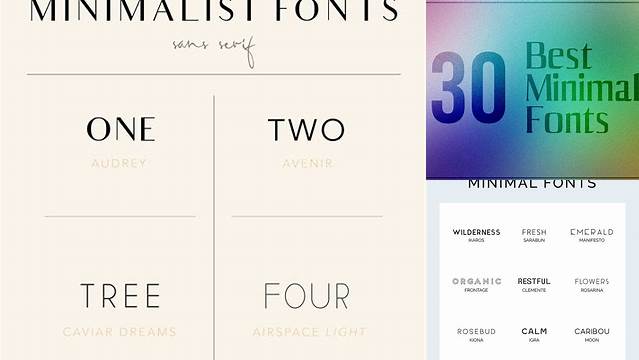
Minimalist Fonts: Free Downloads & Design Guide
Minimalist Font Style: Free Downloads & Design Inspiration
Hey design enthusiasts! Are you looking to give your projects a clean, modern, and timeless feel? Then you've landed in the right spot! Today, we're diving headfirst into the world of minimalist font styles, where less definitely equals more. We'll explore some fantastic free download options and sprinkle in some design inspiration to get your creative juices flowing. Buckle up, because we're about to embark on a typographic adventure! When it comes to design, simplicity reigns supreme, and the right font can make all the difference. Minimalist fonts are the unsung heroes of the design world, effortlessly communicating your message while adding a touch of elegance and sophistication. They're perfect for everything from website design and branding to print materials and social media graphics. So, whether you're a seasoned designer or just starting out, understanding the power of minimalist fonts is a must. Let's get started with our comprehensive guide to minimalist font styles. You will discover how to find the perfect typeface for your project. We'll discuss the key characteristics of minimalist fonts, where to find free downloads, and how to use them effectively in your designs. This comprehensive guide will empower you to create stunning visuals that captivate your audience and leave a lasting impression.
What Makes a Font Minimalist?
So, what exactly is a minimalist font? Essentially, it's a typeface that embraces simplicity. It's all about clean lines, uncluttered forms, and a focus on functionality. Think of it as the design equivalent of a perfectly tailored suit – elegant, understated, and always in style. These fonts typically feature a few key characteristics: a lack of unnecessary embellishments, such as serifs (those little strokes at the end of letterforms), or decorative flourishes. Instead, they often sport a geometric structure with a focus on balance and harmony. Many minimalist fonts are sans-serif, meaning they lack those serifs, which contributes to their modern, clean aesthetic. This makes them incredibly versatile and easy to read, even at smaller sizes. Think about the iconic Helvetica or Futura. Both of these are great examples of minimalist sans-serif fonts. This makes them great for logos, body text, and headlines. The emphasis is on clarity and readability, ensuring that your message is communicated clearly and effectively. The goal is to create a visual experience that is both aesthetically pleasing and easy to understand. Minimalist fonts aren’t just about what’s there; they’re also about what’s not there. The careful use of negative space around and within the letters is a crucial element of their design. The spacing allows the letters to breathe and prevents the design from looking cluttered. This is especially important when designing for digital platforms, where clarity and legibility are paramount. A well-designed minimalist font will elevate your design, making it feel sophisticated and professional. By focusing on simplicity, these fonts avoid distracting your audience from your message. They allow your content to take center stage. This design philosophy can significantly enhance your brand identity. It provides a timeless appeal that remains relevant across different trends and contexts. The ability to maintain a consistent and recognizable style across various media is a key advantage of minimalist fonts. When choosing a minimalist font, consider the overall tone and message you want to convey. A simple sans-serif might be perfect for a tech company, while a slightly more structured typeface could work well for a design studio. This allows you to match the font with your brand's personality and values.
Free Download Sources for Minimalist Fonts
How to Use Minimalist Fonts Effectively in Your Designs
So, you've got your fonts downloaded. Awesome! Now, let's talk about how to use them effectively. Here are some tips and tricks to help you create stunning designs with minimalist fonts:
- Choose the Right Font: This might seem obvious, but it's crucial! Consider the overall feel of your design and the message you want to convey. A clean, geometric sans-serif might be perfect for a modern tech company. A slightly softer, more rounded font could be a great choice for a lifestyle brand. Experiment with different fonts to see which one best fits your needs.
- Keep it Simple: The whole point of minimalist fonts is simplicity. Avoid overcrowding your design with too much text or unnecessary elements. Use negative space wisely to let your font breathe and make it easier to read. This helps you maintain focus on the text. Ensure your design's readability. Strive for a balance between text and visual elements. This will keep your design both informative and visually appealing.
- Pay Attention to Hierarchy: Use different font weights and sizes to create visual hierarchy. This helps guide the reader's eye and makes your content easier to scan. You can use bold for headings, regular for body text, and a lighter weight for subheadings. A well-structured hierarchy guides your audience. Ensure your main points grab their attention. This enhances the overall clarity of your design. Careful arrangement of font sizes helps in prioritizing information. This ensures that the most important elements stand out.
- Contrast is Key: Use contrast to make your text pop. Experiment with different background colors. Text colors should be carefully selected to enhance readability. For example, a dark font on a light background or a light font on a dark background. This is key for readability. Proper contrast makes your text stand out. This will capture the reader's attention. High contrast is crucial for accessibility. People with visual impairments can read your content with ease.
- Consider Kerning and Leading: Kerning is the spacing between individual letters, while leading is the spacing between lines of text. Fine-tune these settings to optimize readability and create a visually pleasing layout. Poor kerning can make a font difficult to read. Bad leading can make text lines overlap. Adjusting these parameters will improve readability. It will also improve the overall look of your design.
- Test, Test, Test: Always test your design on different devices and platforms to ensure that it looks good everywhere. Make sure that your font is legible at various sizes and that the layout is responsive. This ensures a consistent user experience. Responsive design is vital for modern applications. Adaptability makes your content accessible on all devices.
Design Inspiration & Examples
Need a little inspiration? Let's take a look at some examples of how minimalist fonts are used effectively in design:
- Logos: Many iconic brands use minimalist fonts in their logos. Think of the simplicity of Google's logo. It's a testament to the power of clean typography. These logos are instantly recognizable. This helps build brand awareness. Simplicity creates a timeless appeal. It reinforces the brand’s identity across all media.
- Websites: Websites often use minimalist fonts for headings, body text, and navigation elements. This creates a clean and user-friendly experience. Clean typography improves user engagement. It makes content consumption easier. Minimalist fonts often improve website speed and performance.
- Print Design: Minimalist fonts are perfect for brochures, posters, and other print materials. Their clarity ensures that the message is easily understood. This is important for printed materials. Readability is key for grabbing the reader's attention. The simplicity of the fonts ensures that it is easy to read.
- Social Media: Minimalist fonts are used in social media graphics and posts. They ensure that the content is easily readable on small screens. This improves content consumption. They keep your content from getting cluttered. This helps maintain engagement on social media.
Remember, the key is to embrace simplicity and let the font do the talking. Whether you're creating a logo, designing a website, or putting together a print piece, minimalist fonts can help you achieve a clean, modern, and impactful look. With a little creativity and the right font, you can create designs that will stand the test of time. So go forth, download some fonts, and start designing! You are now equipped with the knowledge. You can design visually stunning projects.